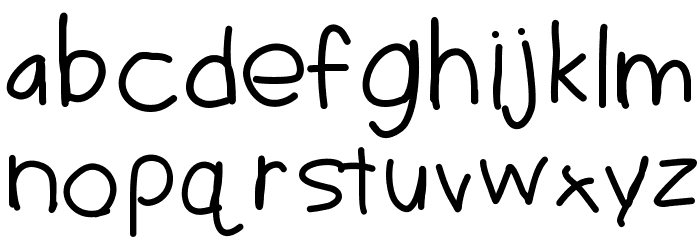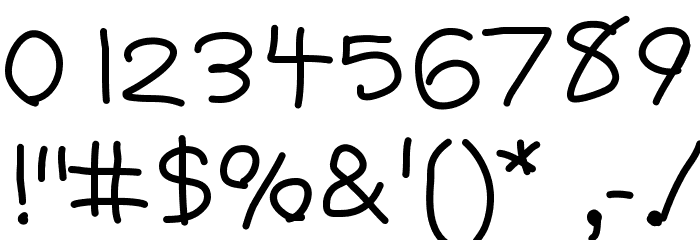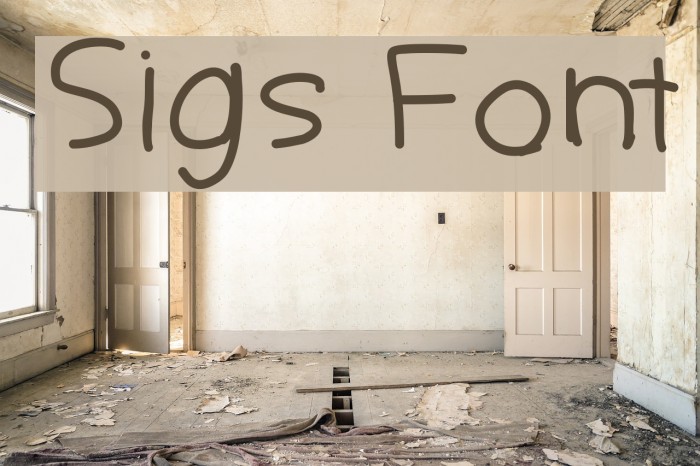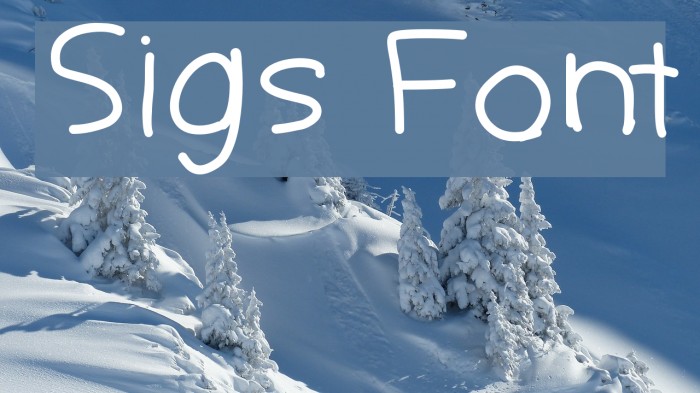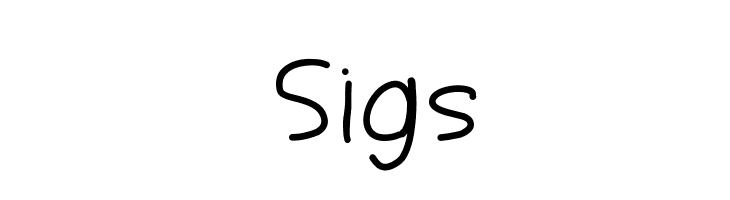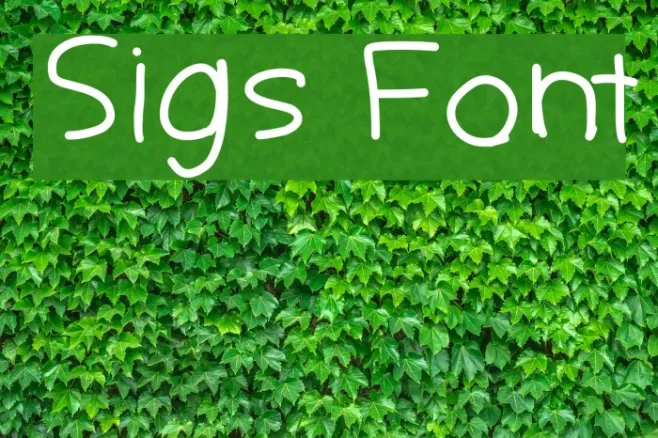
Sigs Font
This font exhibits a playful and informal handwritten style, characterized by its uneven strokes and casual appearance. The letters are slightly irregular, giving it a personal and approachable feel. The uppercase and lowercase letters maintain a consistent style, with rounded edges and a slight tilt, adding to its whimsical nature. The numerals and special characters follow the same playful design, ensuring uniformity across all elements. This font is ideal for projects that require a friendly and informal touch, such as children's books, casual invitations, or creative branding.
A playful, informal handwritten font with a casual and whimsical style.
- Proposed Projects: Children's books, casual invitations, creative branding, personal notes.
- Overall Style: Casual, Playful
- Use Case: Headlines, Informal text, Creative projects